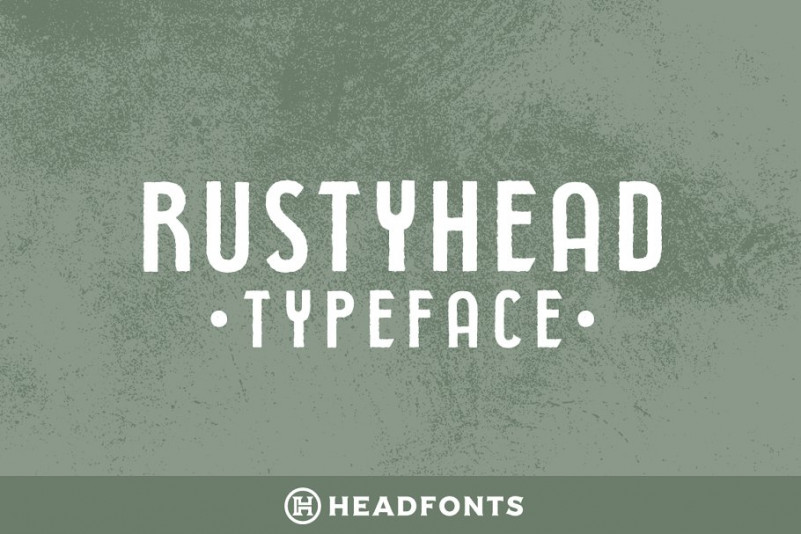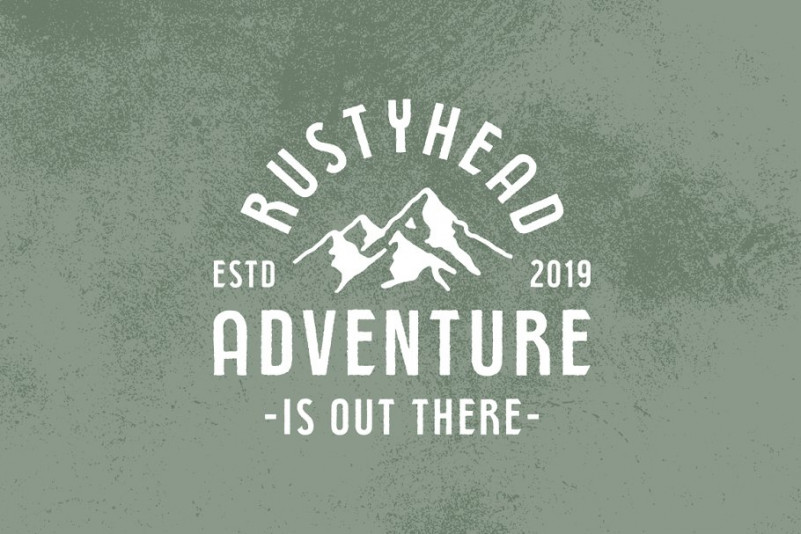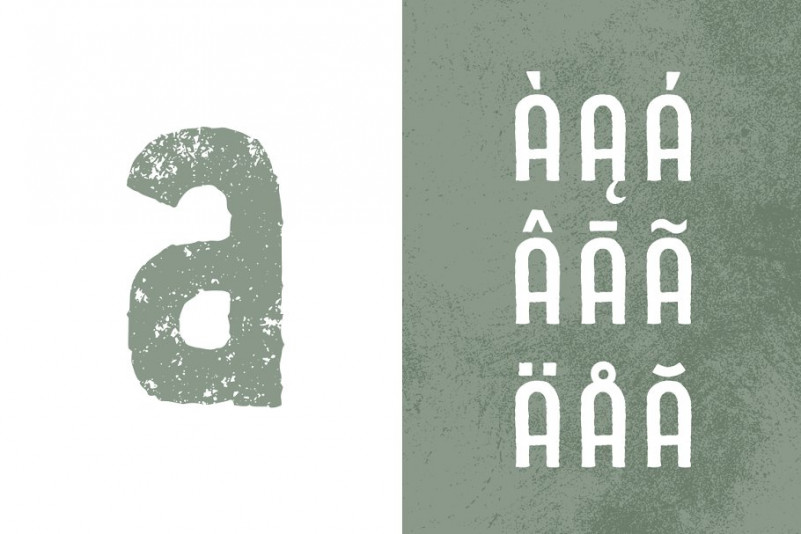
Rustyhead Font
Introducing Rustyhead Typeface, a font that was born from a very efficient collaboration with Geroge Cibu. The letters were made with brushes stokes in Procreate and then carefully converted into vector format. That is why Rustyhead has charming, authentic and textured characteristic. Rustyhead it also multilingual and has many signs and symbols. Is a perfect typeface for clothing designs, branding projects, logo design, quotes product, packaging or simply as a stylish text overlay to any background image.